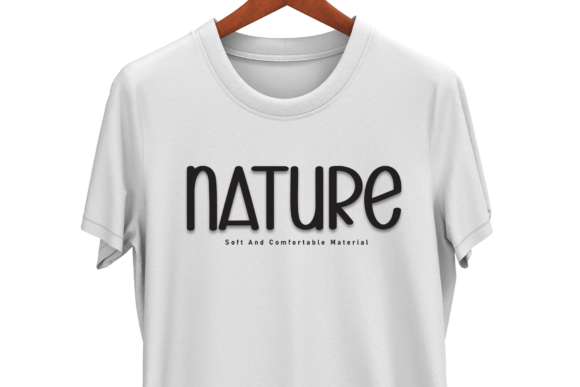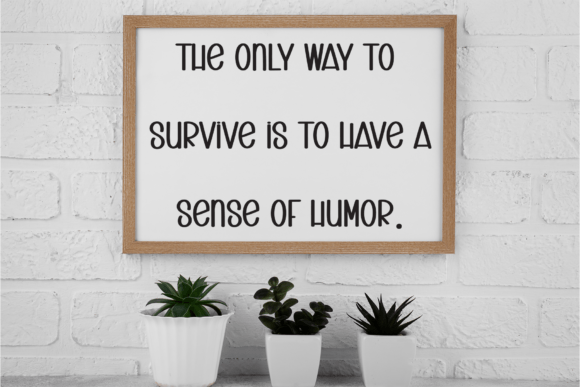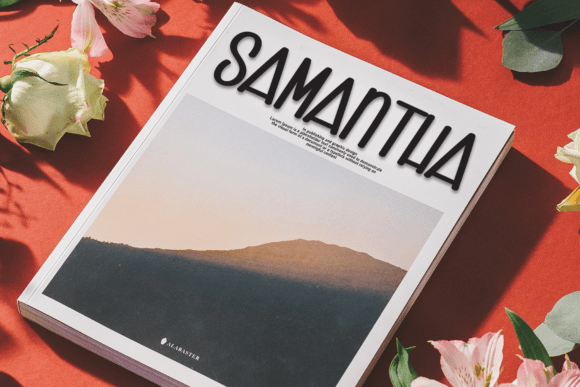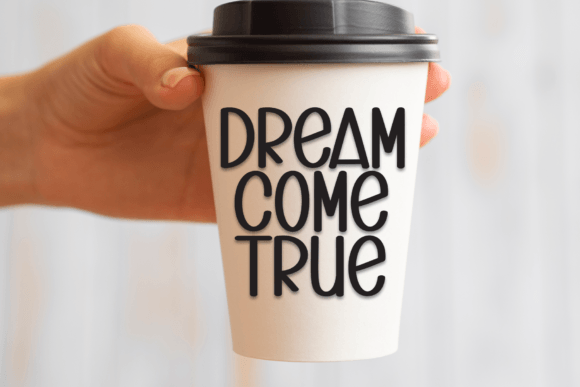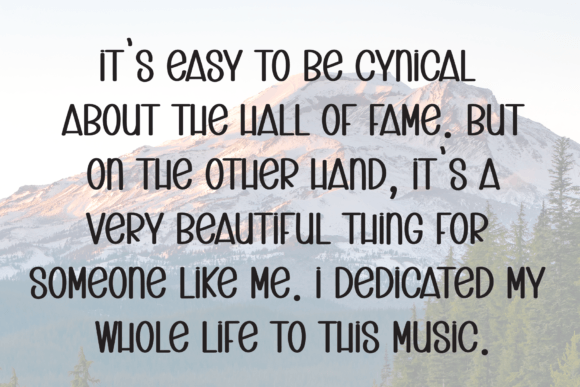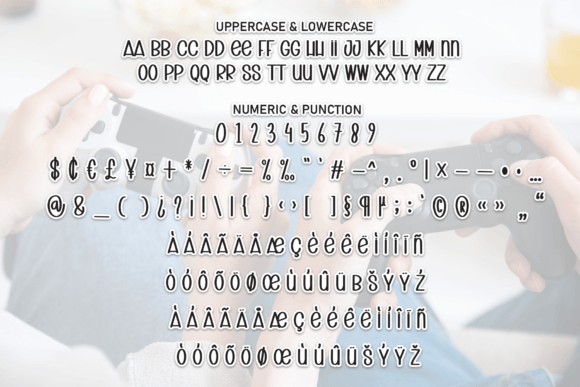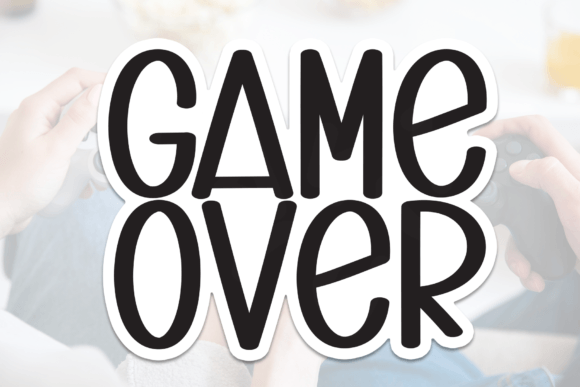
Introducing Game Over Font: The Sweet and Friendly Handwritten Font for Your Creative Projects
Are you a designer, crafter, or DIY enthusiast looking for a unique and versatile font to elevate your creative projects? Look no further than Game Over Font, a sweet and friendly handwritten font that’s perfect for a wide range of designs. With its natural and distinctive style, Game Over Font is sure to capture the hearts of your audience and leave a lasting impression.
The Story Behind Game Over Font
Game Over Font is a carefully crafted handwritten font that’s designed to bring a touch of personality and whimsy to your designs. Its creator had a vision of developing a font that would be both approachable and engaging, making it suitable for a variety of projects, from playful crafts to professional branding materials.
What Makes Game Over Font So Special?
So, what sets Game Over Font apart from other fonts out there? Here are just a few of its standout features:
- Unique and Handwritten Style: Game Over Font boasts a one-of-a-kind, handwritten style that’s full of character and charm. Its natural, fluid lines make it feel approachable and relatable.
- Versatility: Whether you’re working on a fun craft project, a branding campaign, or a website design, Game Over Font adapts seamlessly to any design style or theme.
- Easy to Read: Despite its playful nature, Game Over Font remains highly legible, making it perfect for both headlines and body text.
- Imagination is the Only Limit: With Game Over Font, your creativity knows no bounds. Use it for anything from party invitations and greeting cards to logos, posters, and more.
Game Over Font is an excellent addition to any designer’s or crafter’s toolkit. Here are some ideas for how you can use this fantastic font:
- Branding and Logos: Create a memorable brand identity with Game Over Font, perfect for businesses that want to appear friendly and approachable.
- Stationery and Invitations: Add a personal touch to your stationery, invitations, and greeting cards with this beautiful handwritten font.
- Web Design: Use Game Over Font to create engaging and user-friendly website designs that stand out from the crowd.
- Crafting and DIY Projects: From scrapbooking to crafting, Game Over Font is the perfect choice for adding a personal touch to your DIY projects.
Tips for Using Game Over Font Effectively
To get the most out of Game Over Font, here are a few tips to keep in mind:
- Mix and Match: Combine Game Over Font with other fonts to create visual interest and add depth to your designs.
- Play with Colors: Experiment with different colors to find the perfect match for your design and brand.
- Keep it Simple: Don’t be afraid to keep things simple and let Game Over Font be the star of the show.
In conclusion, Game Over Font is a sweet and friendly handwritten font that’s perfect for designers, crafters, and DIY enthusiasts. Its unique and natural style makes it incredibly versatile, and its ease of use makes it a joy to work with. Whether you’re looking to add a personal touch to your designs or create a memorable brand identity, Game Over Font is the perfect choice. So why wait? Get creative with Game Over Font today and see where your imagination takes you!